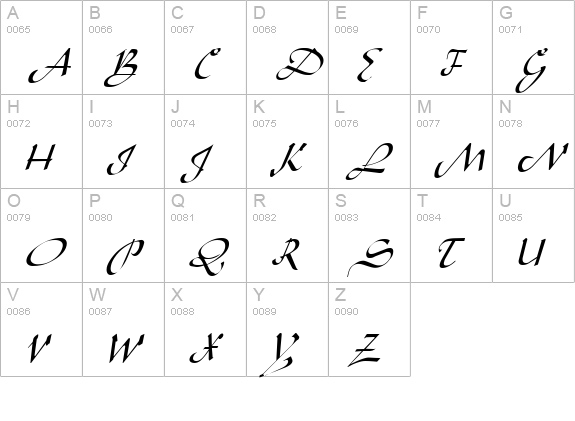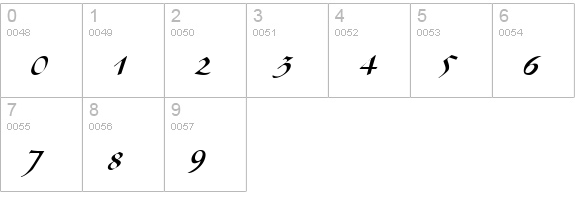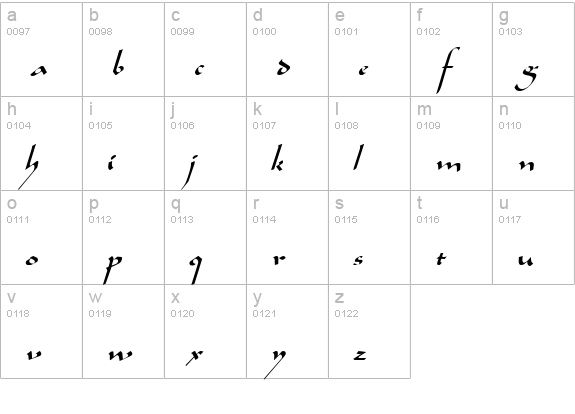
Sinbad Normal Font Details
Sinbad Normal is the standard, neutral variant in the Sinbad typeface family \xE2\x80\x94 well suited to general body text, paragraphs, and standard typographic work.
Sinbad Normal is a versatile and stylish font that is perfect for a wide range of design projects. With its sleek and modern appearance, this font is sure to catch the eye and add a touch of sophistication to any project. Whether you're creating a logo, designing a website, or crafting a beautiful print piece, Sinbad Normal has you covered. Its clean and clear letterforms make it easy to read, while its subtle curves and unique details give it a distinct personality. One of the best things about Sinbad Normal is that it is available for free. That's right, you can download this amazing font at no cost from FontsMarket.com. This means that you can add a professional touch to your designs without breaking the bank. So why wait? Start using Sinbad Normal today and elevate your design projects to new heights. With its effortless elegance and professional quality, this font is sure to impress. Download it now at FontsMarket.com and enjoy the freedom of creating stunning designs with ease.